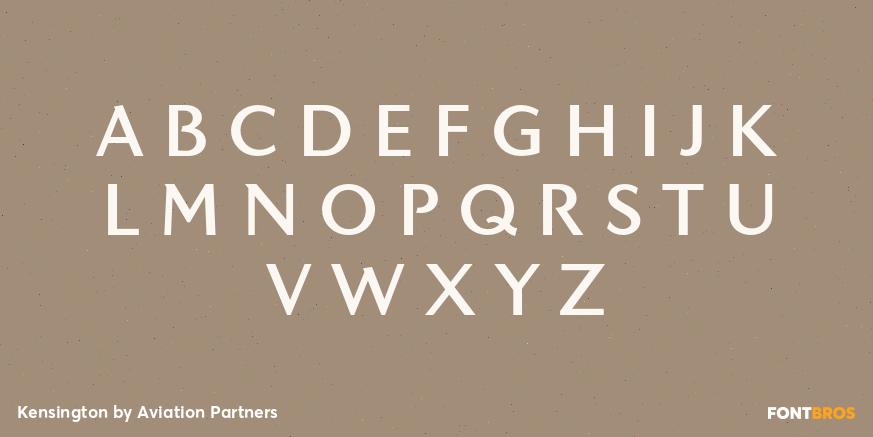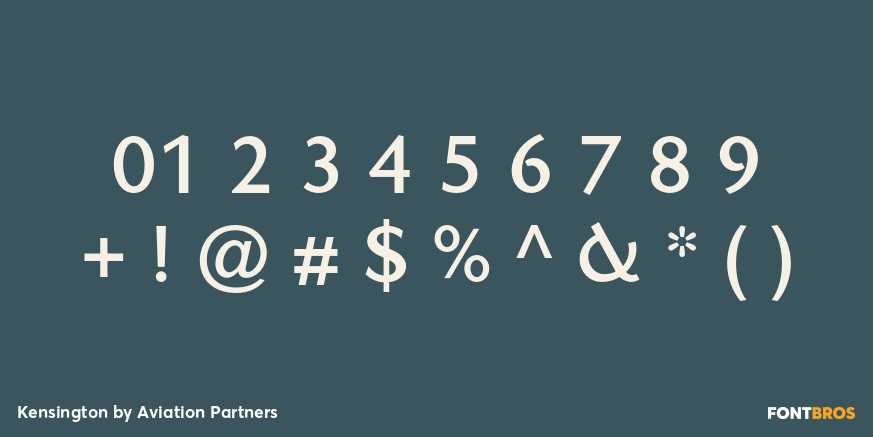
Kensington
Font Family by Aviation Partners
Kensington started life as a sans serif based loosely on the strokes and weights of Garamond but, inevitably, influences of Gill Sans crept in, creating an interesting mix.
The single weight is excellent for titling and works as a body font in reasonably small quantities.